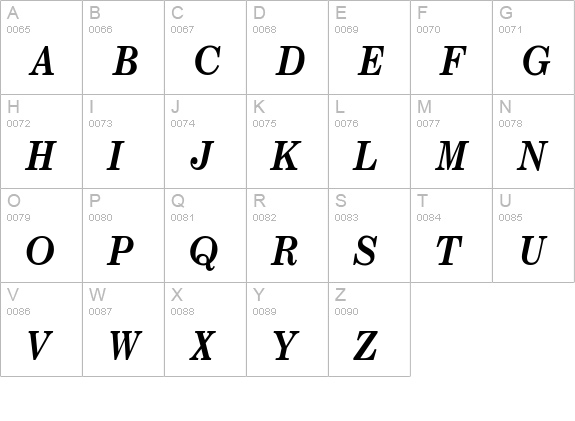
Introducing NewCenturySch 6 font, a classic and timeless typeface that exudes elegance and sophistication. With its clean lines and sleek design, this font is perfect for adding a touch of refinement to any project. NewCenturySch 6 is versatile and can be used for a variety of design purposes, from branding to editorial layouts. The best part? NewCenturySch 6 font is completely free to download at FontsMarket.com. Yes, you heard that right - you can access this exquisite font at no cost, making it a valuable addition to your font library without breaking the bank. Don't miss out on the opportunity to enhance your designs with this beautiful typeface. Download NewCenturySch 6 font today and elevate your creative projects to new heights.